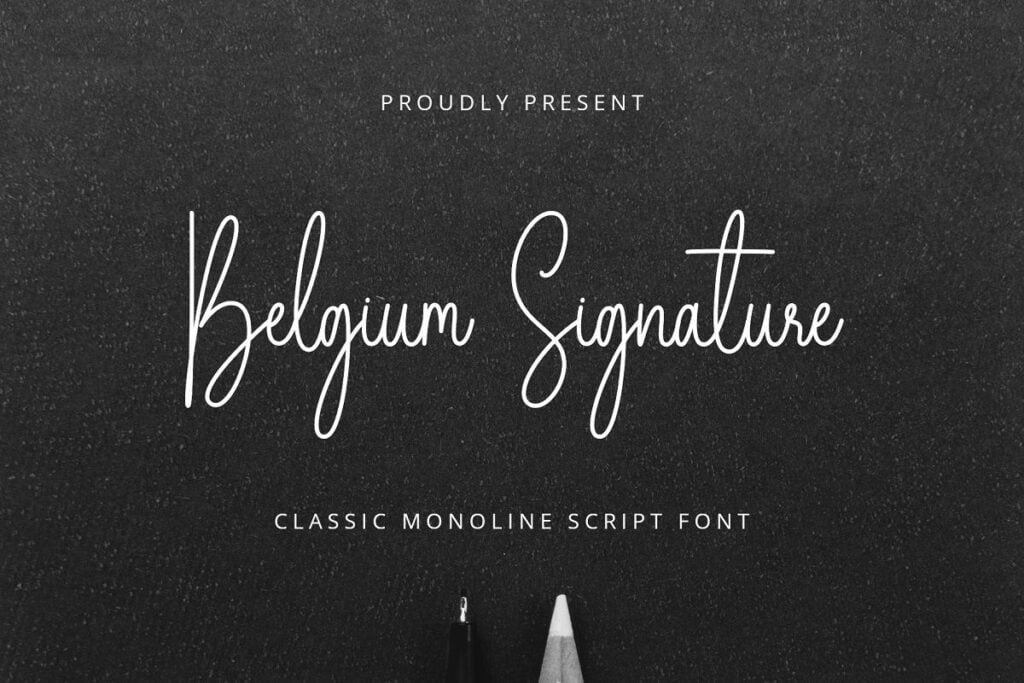
Belgium Signature Font
Belgium Signature is a monoline script font. Belgium Signature is made with a classic theme so that the shape of each letter looks simple and like handwriting. Belgium Signature is very suitable for business card designs, posters, quotes, signatures, book cover designs, merchandise, and much more.
Belgium Signature Monoline Script Font